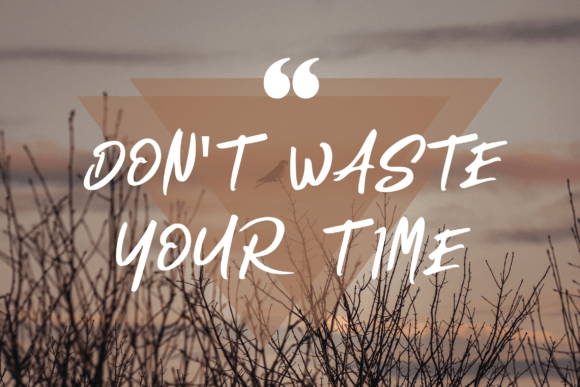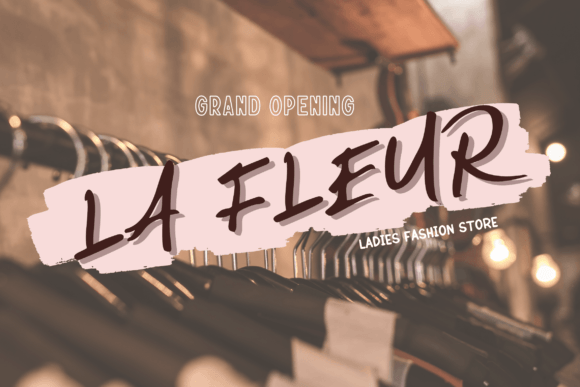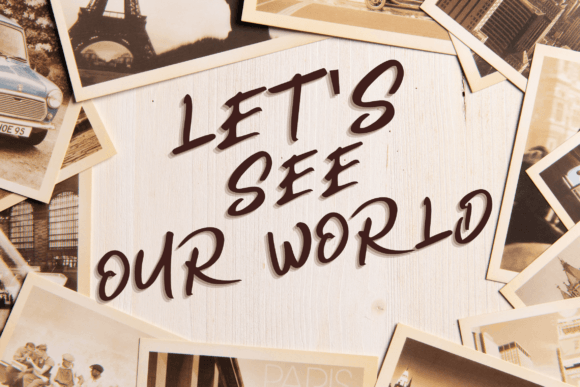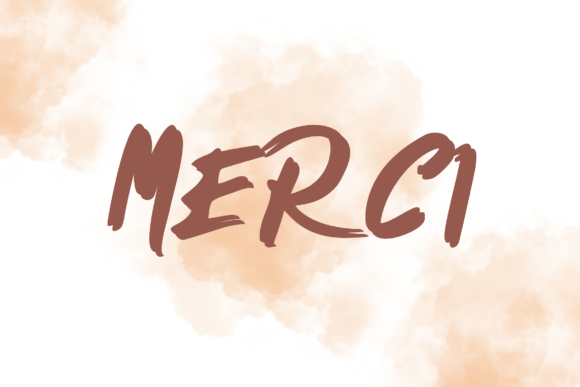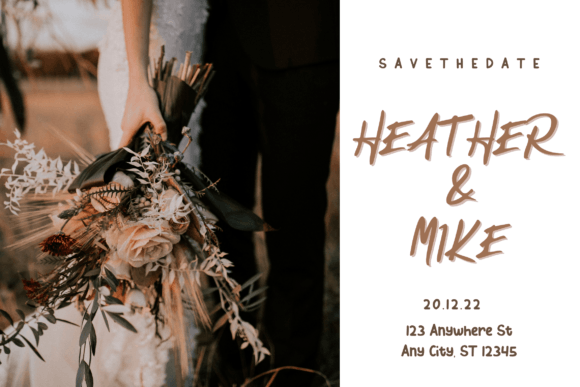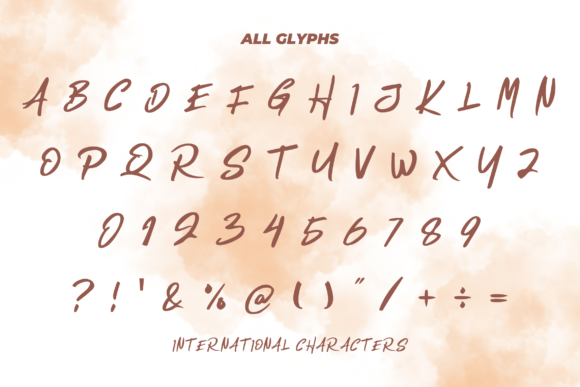
Escape Font
About Escape Font
Escape is a typographic tour de force, a formidable brush font designed to resonate with strength and urban charisma. This typeface is a carefully honed blend of natural strokes and razor-sharp details, making it an ideal choice for a diverse array of applications, ranging from logos and apparel to quotes and product packaging. It possesses an intrinsic dynamism that can inject a powerful boost of energy into any design, setting it apart in the realm of typographic expression.
At its core, Escape embraces a street-friendly aesthetic, exuding a raw and unapologetic spirit that resonates with contemporary design trends. Its strokes are not just letters; they are statements, capturing the essence of boldness and rebellion. The font’s meticulous craftsmanship pays extra attention to preserving the authenticity of hand-drawn strokes, ensuring that each character carries an innate sense of personality and dynamism.
In the realm of logo design, Escape becomes a visual catalyst, transforming a brand identity into a bold statement. Its robust, yet fluid, letterforms command attention, making it an ideal choice for businesses seeking a strong and memorable visual presence. The font’s versatility extends to apparel design, where it can seamlessly integrate with various styles, adding an edgy flair to clothing and accessories.
Quotes, when rendered in Escape, transcend mere words; they become powerful declarations. The font’s expressive nature amplifies the impact of motivational phrases, turning them into visual motivators that resonate with vigor. Escape’s ability to convey emotion through typography makes it a valuable asset in the hands of designers aiming to create designs that leave a lasting impression.
Product packaging is another domain where Escape shines. Its bold and sharp details make labels and packaging stand out on crowded shelves, instantly grabbing the consumer’s attention. The font’s urban vibe makes it particularly appealing for products targeting a young, vibrant audience.
In conclusion, Escape is more than just a font; it’s a design powerhouse. With 400 words being a testament to its versatility, it stands ready to transform your creative endeavors, infusing them with a turbo-boost of typographic energy that leaves a lasting impression in the minds of those who encounter it.